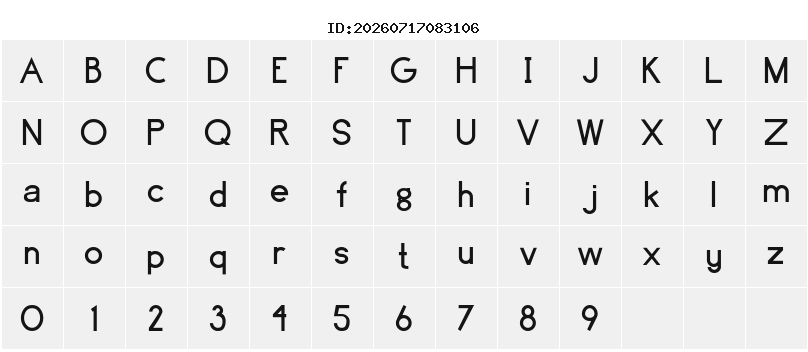
Brassfield Preview
• Font Name: Brassfield
• Full Font Name: Brassfield
• PostScript Name: Brassfield
About Brassfield.ttf
Brassfield.ttf is a modern, elegant sans-serif font designed for ultimate readability and visual harmony. Perfect for branding, headlines, web design, and print materials.